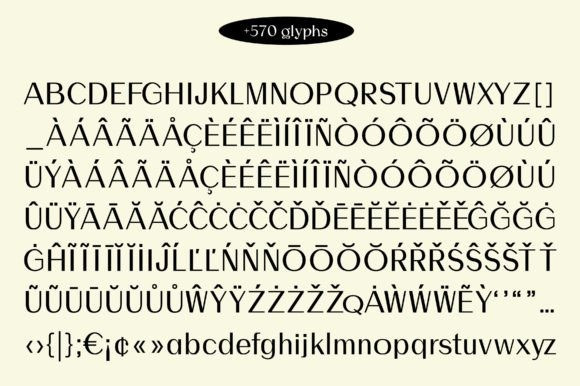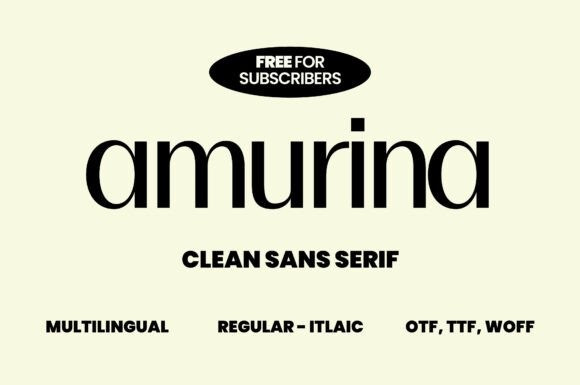
Amurina Font
Amurina Font – the ultimate minimalist, chic, and modern sans serif grotesque typeface. With clean lines and versatile beauty, this timeless font enhances readability and creativity in any design project. Embrace sophistication and elevate your creations with “Amurina” – your key to effortless elegance this summer.